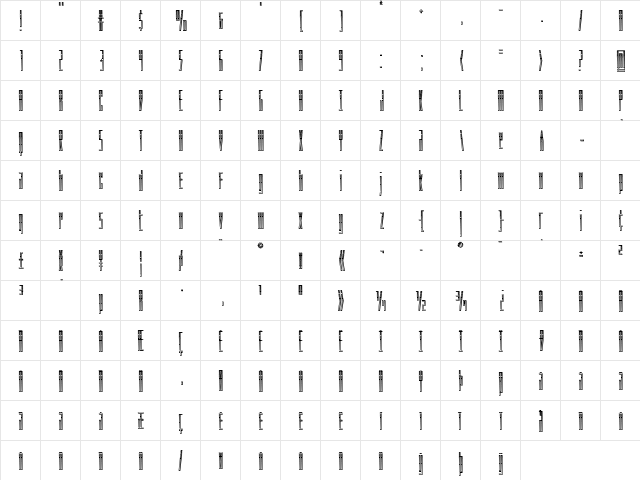
Phantacon Chrome Regular Font Preview
Phantacon Chrome Regular
Design Context for Phantacon Chrome Typeface
Phantacon Chrome is a composed and adaptable typeface that performs quietly and consistently across a wide range of design contexts.